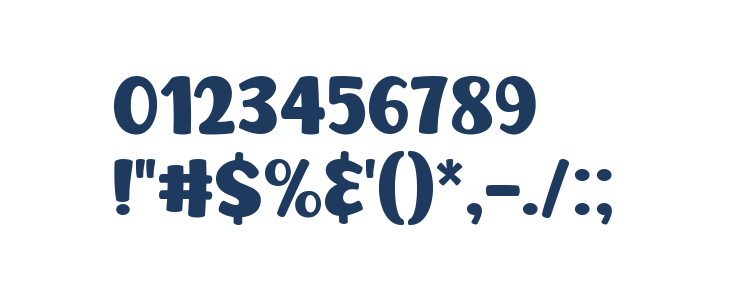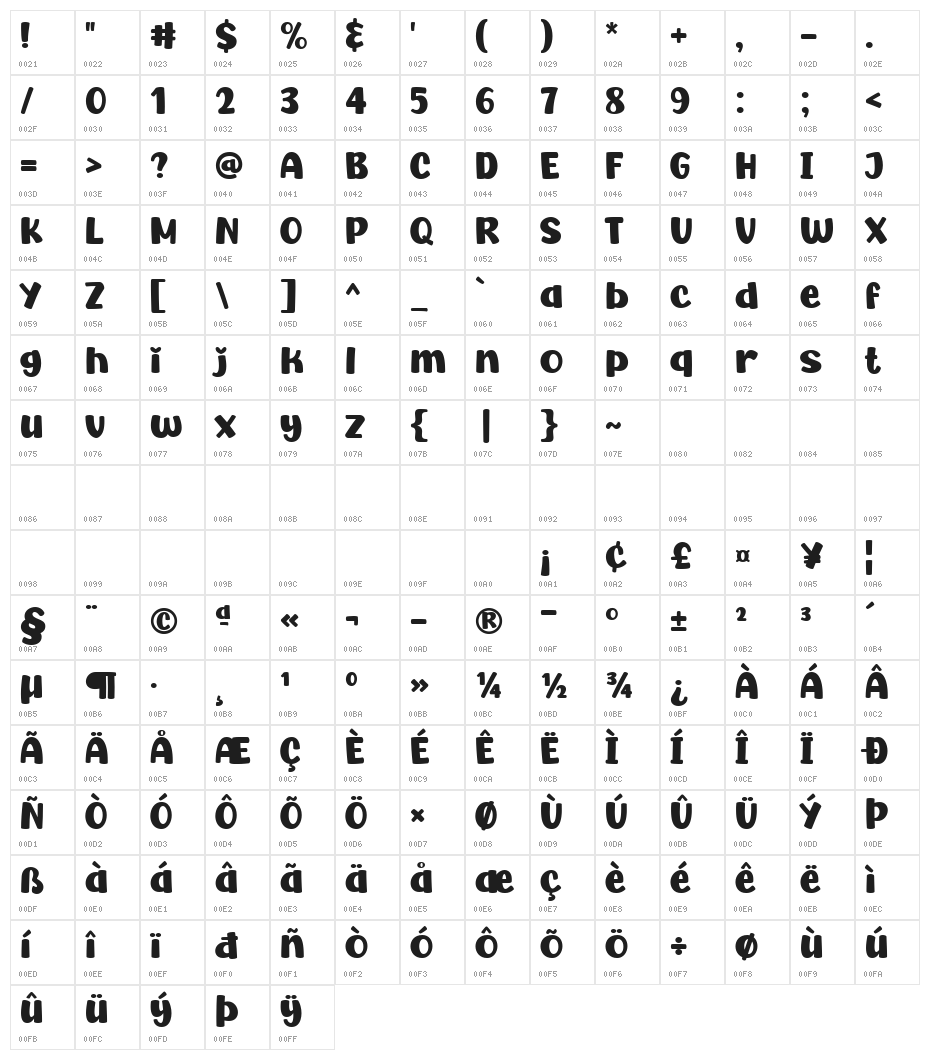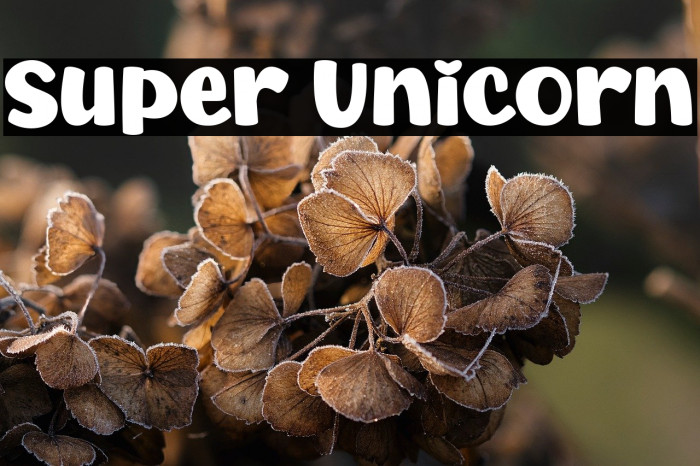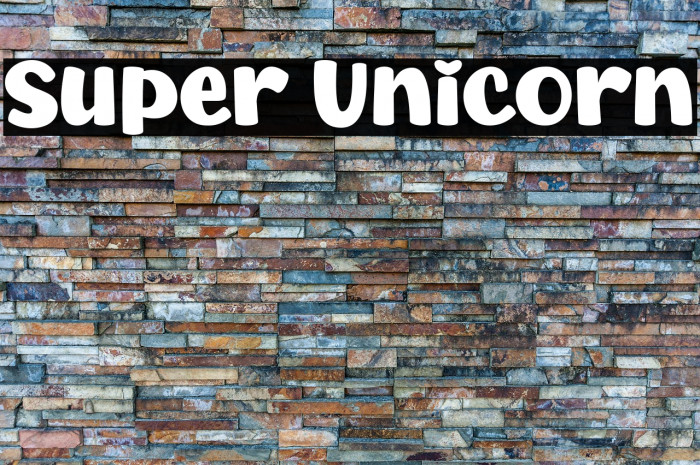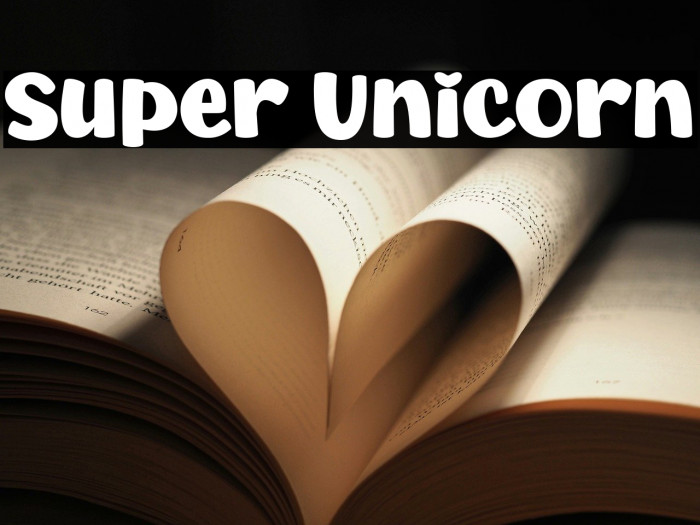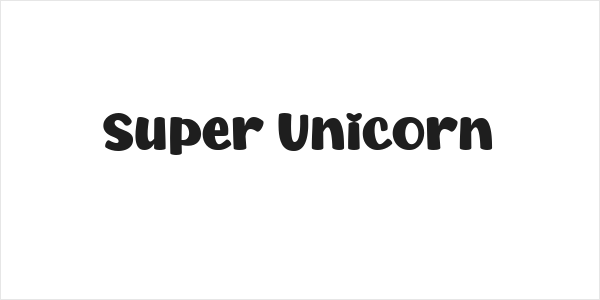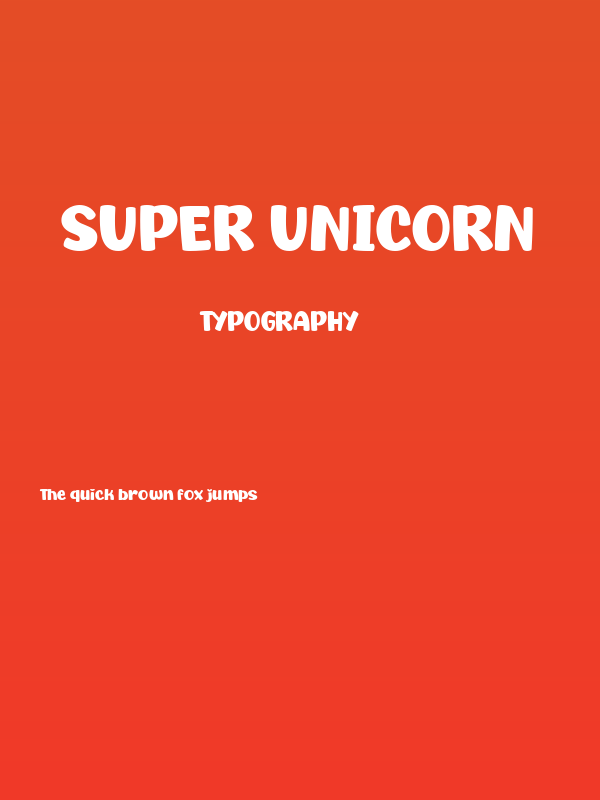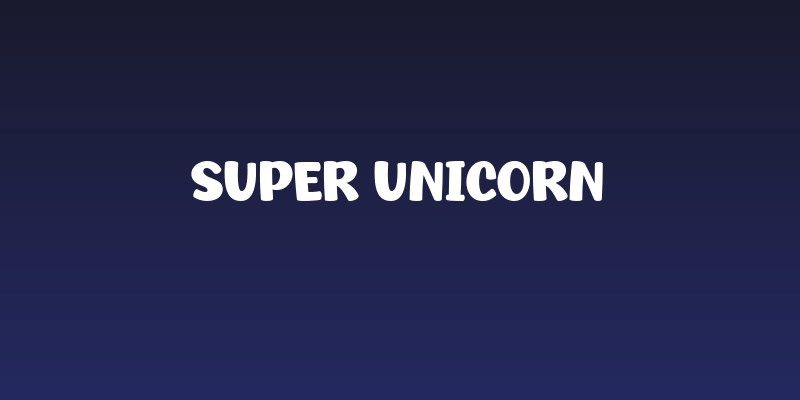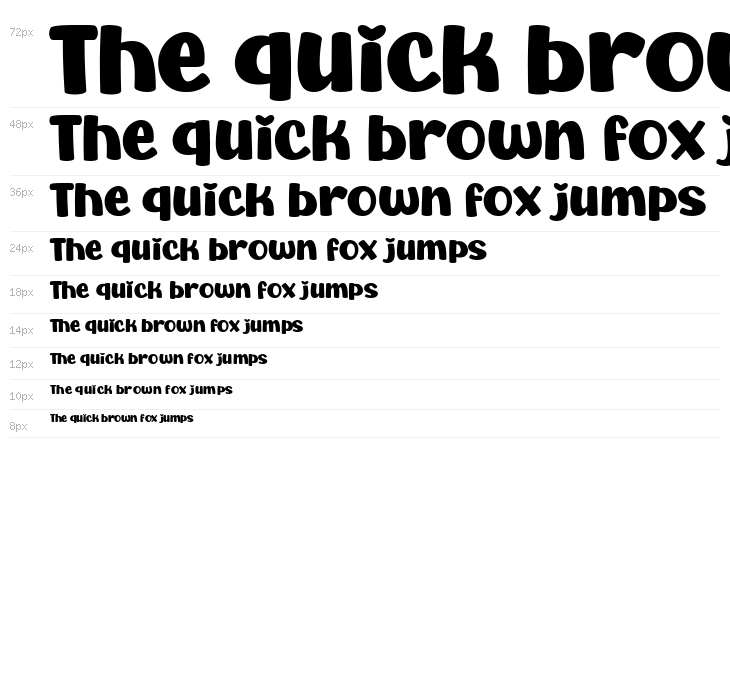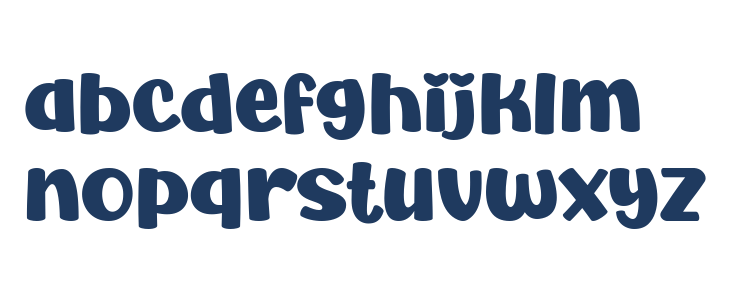
Super Unicorn Font
Super Unicorn Description
This playful and bold font features rounded, thick strokes that give it a friendly and approachable appearance. The characters are uniformly wide, with a consistent weight that adds to its boldness. The uppercase and lowercase letters maintain a cohesive style, with a slight whimsical touch in some of the letterforms. The numbers and special characters follow the same design principles, ensuring a harmonious look across all glyphs. This font is ideal for projects that require a fun and engaging typeface, such as children's books, playful branding, or eye-catching headlines.
Overall StylePlayful, Fun
Proposed ProjectsChildren's books, playful branding, eye-catching headlines, posters, and event invitations.